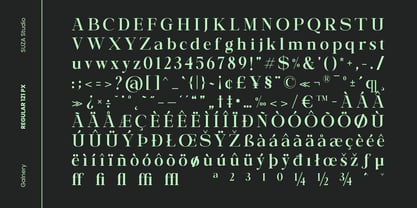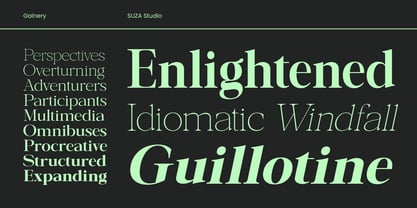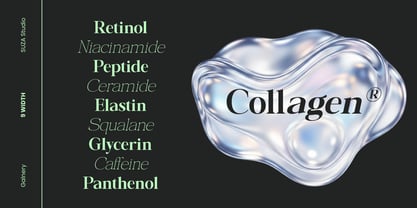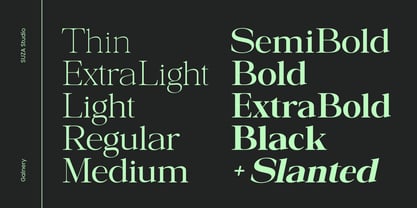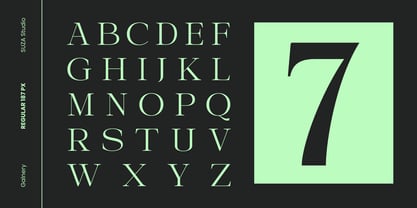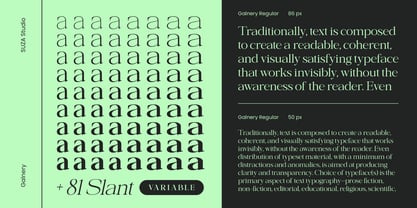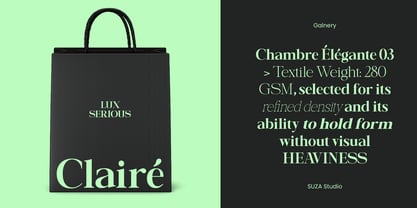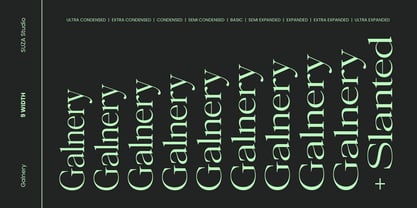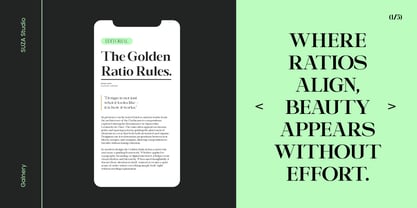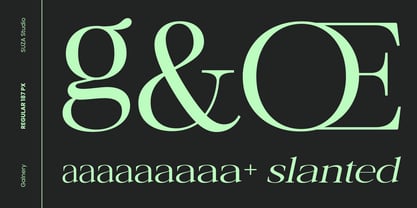
Galnery
The Galnery Font Family was designed by Zikrillah and published by Suza Studio. Galnery contains 162 styles and family package options. More about this family
Galnery is a contemporary serif font family with 162 files, designed for extreme flexibility through variable font technology. For more details about the font Key Characteristics: Visual Style: Blends the elegance of classic serifs with a crisp, clean modern touch. Flexibility: Has a highly adaptable structure for a variety of design needs. Technical Strength: Leverages variable font technology for smooth weight and width transitions without losing character detail. File Structure & Variations: Weight Range: From Thin to Black or Ultra. Character Width: From Condensed to Expanded. Slant: Upright and Slant versions available for each weight and width variation.